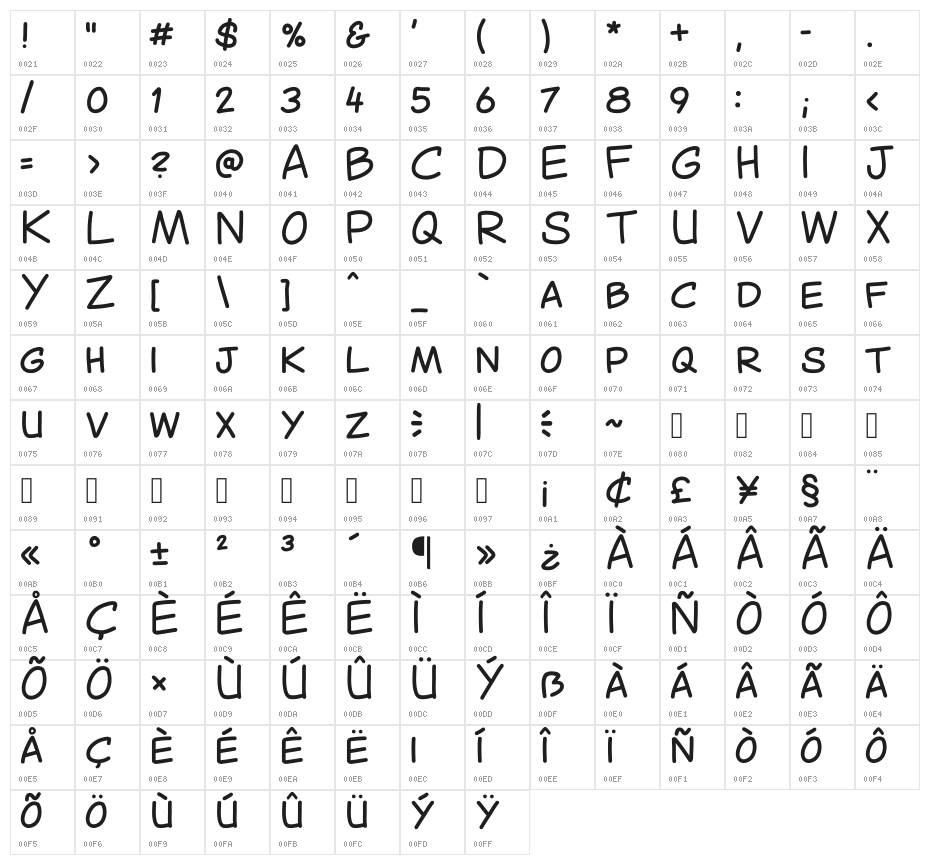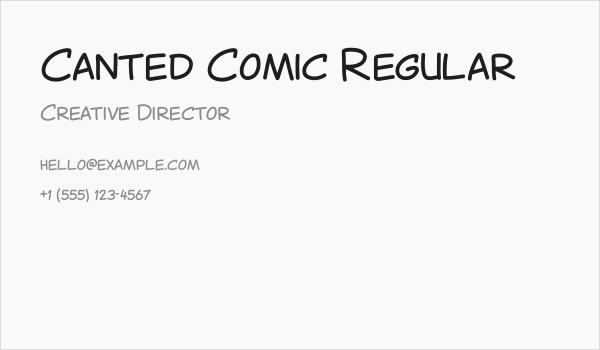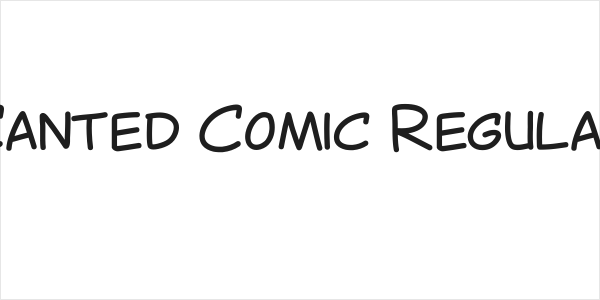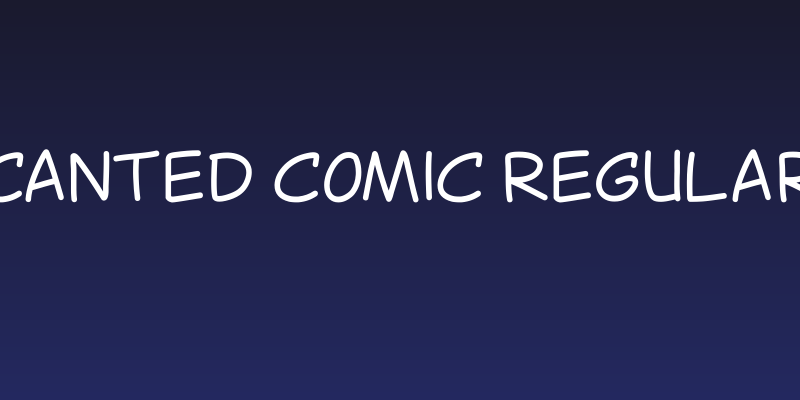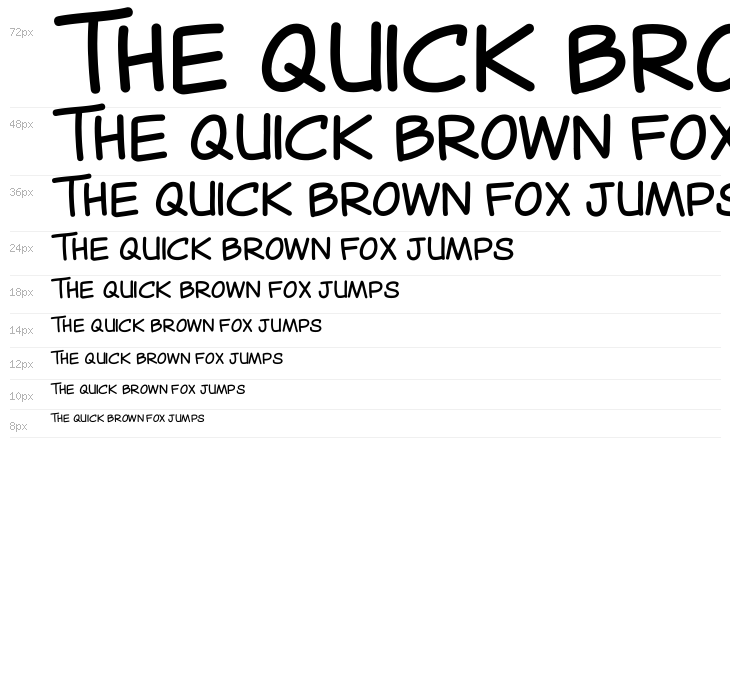
Canted Comic Regular Font
Canted Comic Regular Description
This playful and informal font features a handwritten style with a comic-like appearance. The letters are slightly slanted, giving a dynamic and lively feel. The strokes are consistent and rounded, providing a friendly and approachable look. The uppercase and lowercase letters maintain a uniform style, while the numbers and special characters complement the overall design. This font is ideal for projects that require a casual and fun aesthetic, such as children's books, comics, or playful branding.
| Proposed Projects | Ideal for children's books, comic strips, playful branding, and casual invitations. |